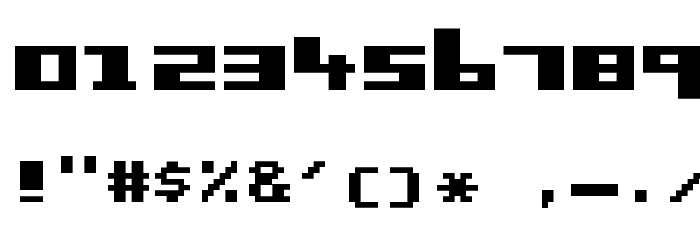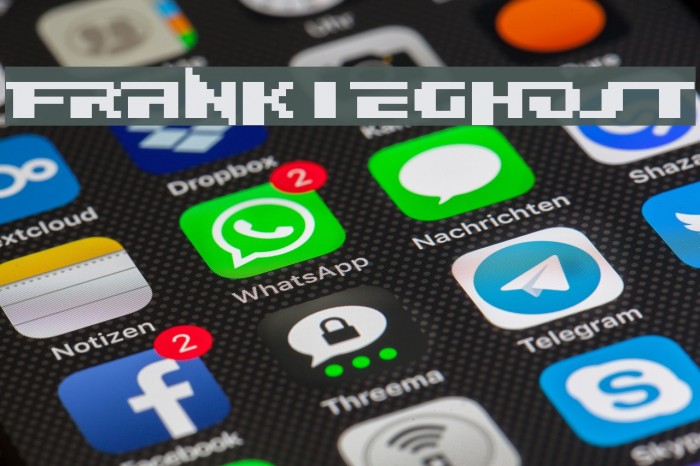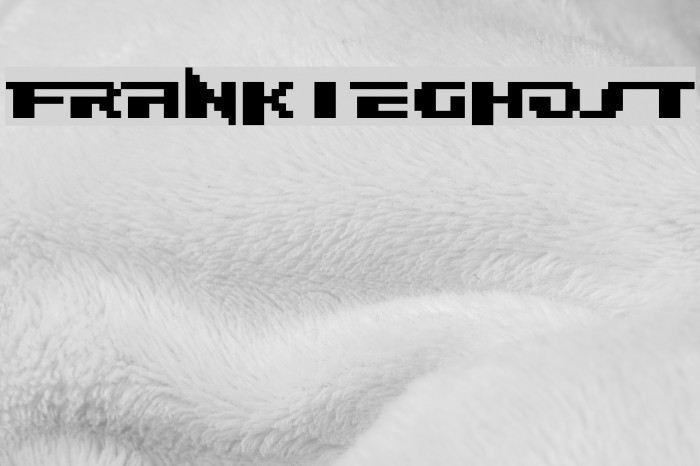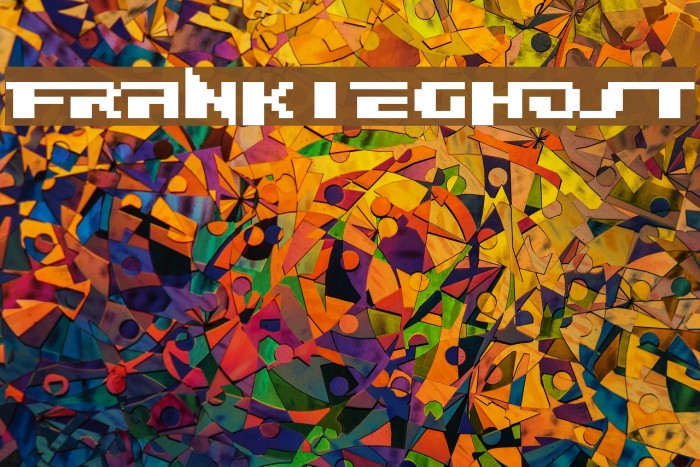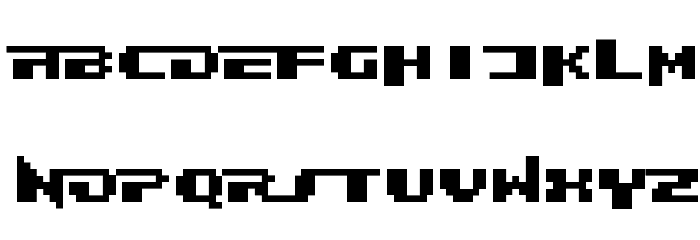
Frankieghost Font
This font features a bold, pixelated design reminiscent of early digital or video game aesthetics. Each character is constructed with a blocky, geometric style, creating a sense of uniformity and consistency across the typeface. The uppercase and lowercase letters maintain a similar height, enhancing the compact and cohesive appearance. The numerals and special characters follow the same pixelated theme, ensuring a seamless integration within any text. This font's distinct style makes it ideal for projects that aim to evoke a retro or tech-inspired feel.
• Proposed Projects: Ideal for video game graphics, retro-themed posters, digital art, and tech-related branding.
• Overall Style: Retro, Digital, Geometric
• Use Case: Logos, Headlines, Posters